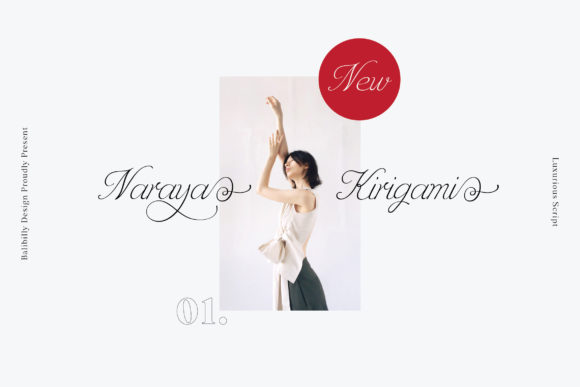
Prepare yourself to be mesmerized by the captivating Naraya Kirigami Font, a masterpiece crafted by the renowned Balibilly Design. Allow its thin lettered and graceful script to ignite your imagination and transform your creative endeavors into works of art.
Picture this: your fashion logo adorned with the elegant curves of Naraya Kirigami, exuding sophistication and allure. Its delicate strokes will dance across your designs, creating an enchanting visual symphony. But this font's charm extends far beyond its aesthetic appeal.
With Naraya Kirigami, you'll find yourself effortlessly penning exquisite wedding invitations that evoke a sense of romance and timeless beauty. Its graceful lines will add an air of refinement to your stationery, making each piece a cherished keepsake.
Step into the world of social media and captivate your audience with eye-catching posts that shimmer with the brilliance of Naraya Kirigami. Its captivating script will turn heads and leave a lasting impression, driving engagement and building your brand's presence.
But the possibilities don't end there. This versatile font is a match made in design heaven for any project that demands a touch of elegance and charm. Whether you're crafting heartfelt greeting cards, alluring posters, or even designing your own website, Naraya Kirigami will elevate your creations to new heights.